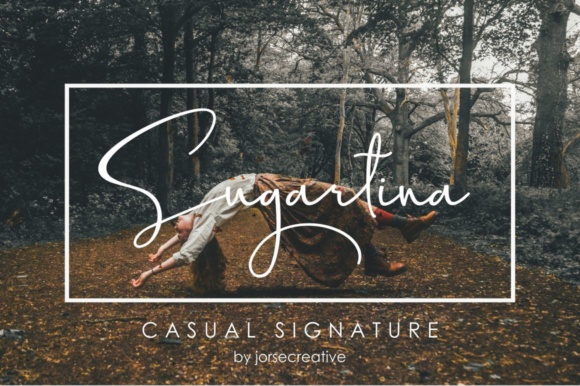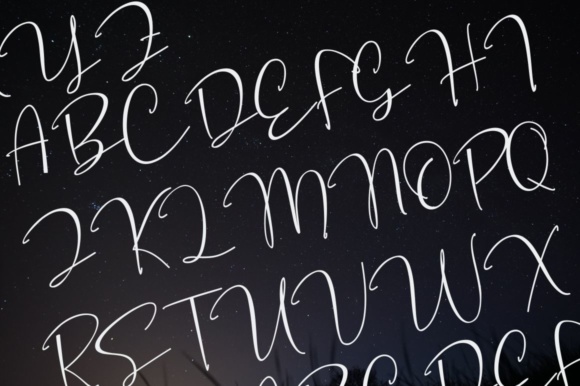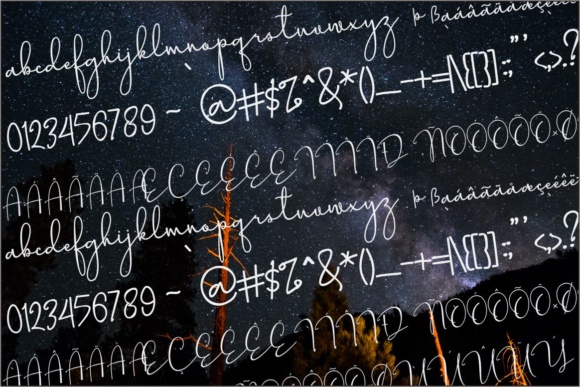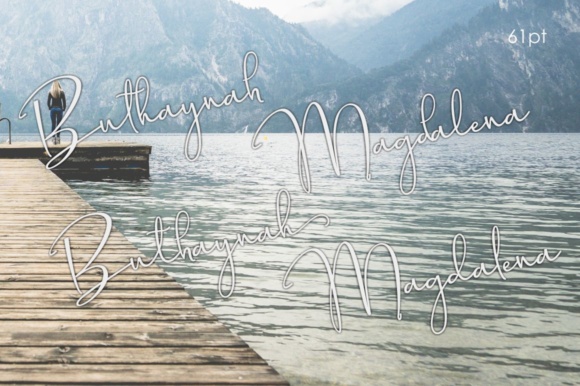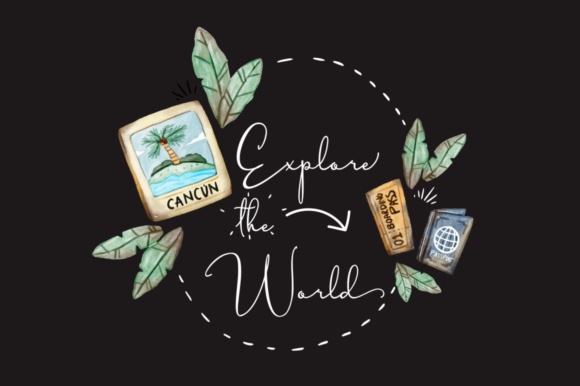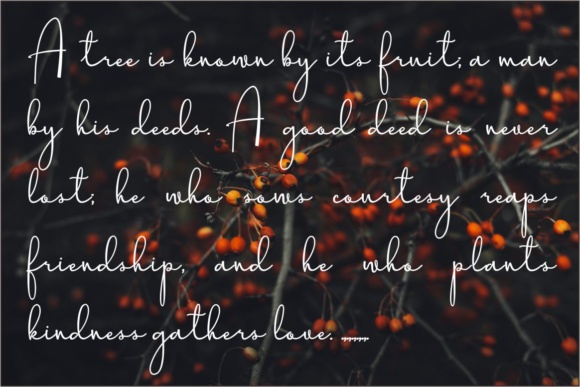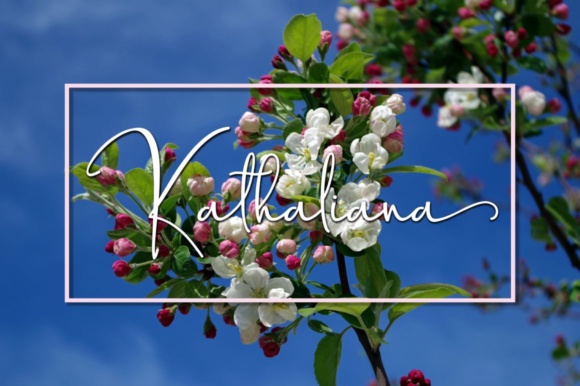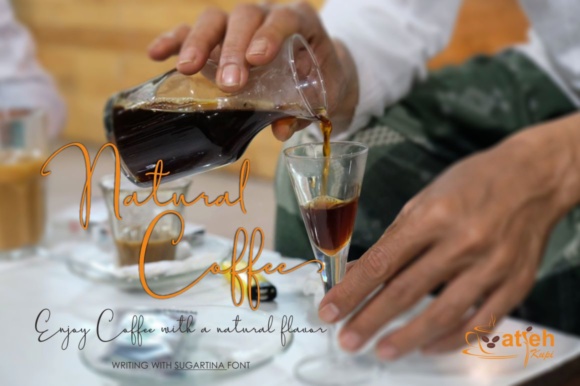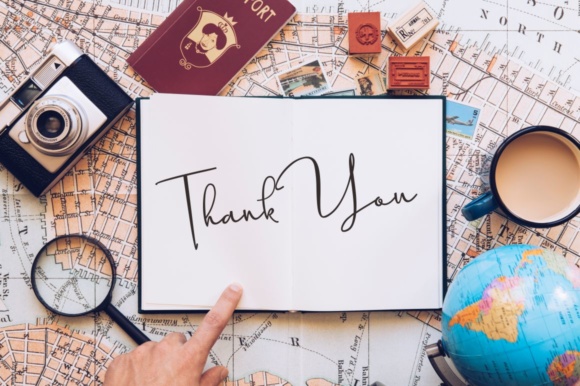
Sugartina Font
About Sugartina Font
The Sugartina is a beautiful signature font in a handwritten style It’s elegant, classy, easy to read, stylish and easy to use.
It’s the perfect choice for watermarks on photography, signature logo designs, quotes, album covers, business cards, invitations and many other design projects.